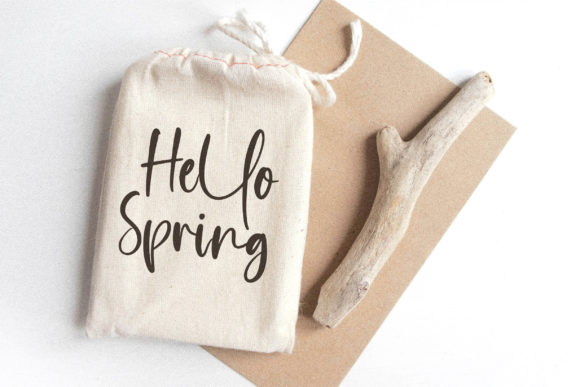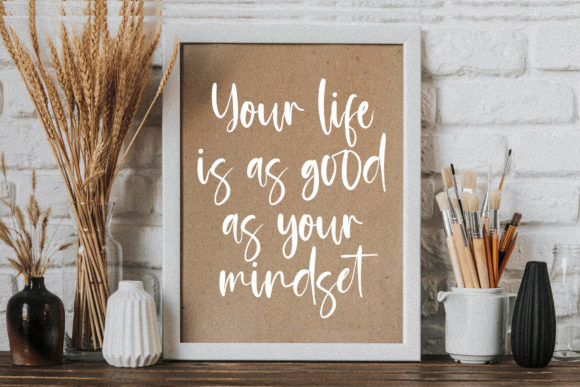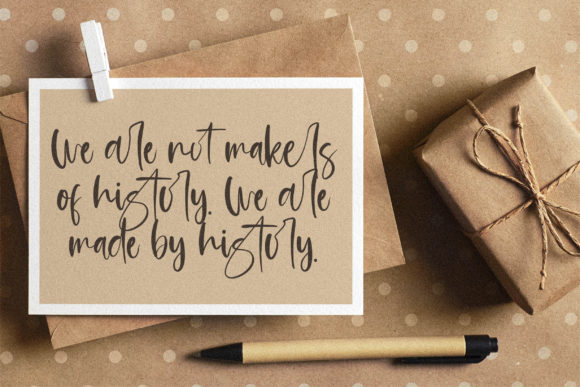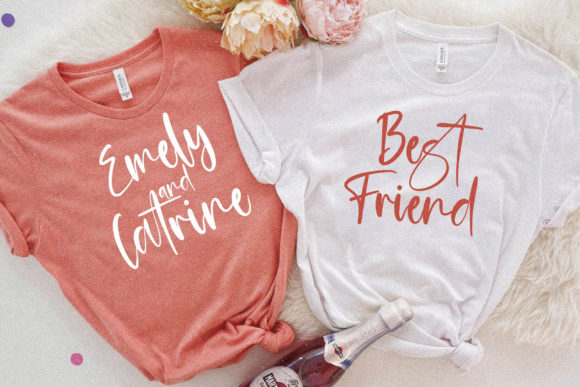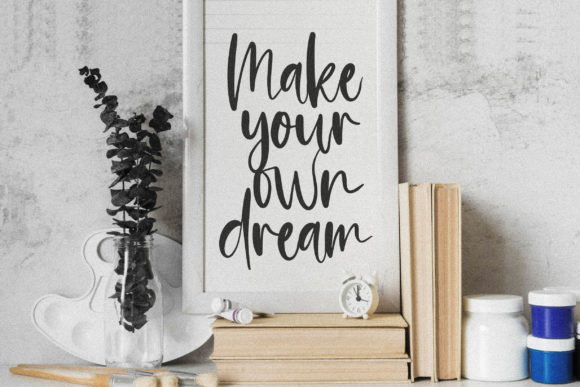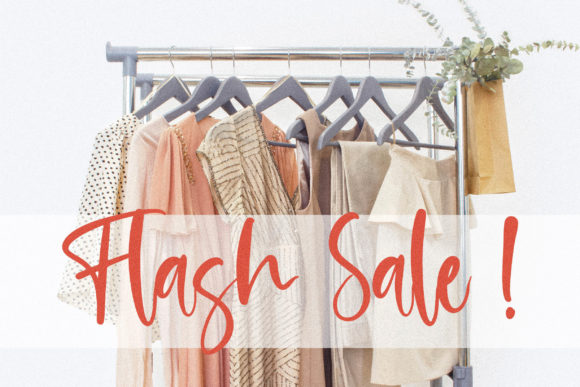
Introducing Amsterdam Morning Font: Elevate Your Designs with Elegance
Are you a designer or crafter looking for a font that embodies elegance and sophistication? Look no further than the Amsterdam Morning Font. This delicate, elegant, and flowing handwritten font is sure to take your creative projects to the next level. With its beautiful and well-balanced characters, Amsterdam Morning Font is the perfect addition to your design arsenal.
The Characteristics of Amsterdam Morning Font
Amsterdam Morning Font is a unique and versatile font that boasts a range of characteristics that make it ideal for a wide range of designs. Its delicate and flowing script is reminiscent of traditional handwriting, yet its elegant and refined aesthetic ensures that it looks modern and sophisticated. The font’s well-balanced characters are carefully crafted to ensure that they work harmoniously together, creating a beautiful and cohesive look that is sure to impress.
Why Choose Amsterdam Morning Font?
So why should you choose Amsterdam Morning Font for your next design project? Here are just a few reasons why this font stands out from the crowd:
- Elegance and sophistication: Amsterdam Morning Font exudes elegance and sophistication, making it perfect for designs that require a touch of refinement.
- Versatility: This font is incredibly versatile and can be used for a wide range of designs, from wedding invitations and branding materials to packaging and digital media.
- Unique and eye-catching: Amsterdam Morning Font is a unique and eye-catching font that is sure to grab attention and leave a lasting impression.
- Easy to read: Despite its elegant and flowing script, Amsterdam Morning Font is easy to read, making it perfect for designs that require a clear and concise message.
How to Use Amsterdam Morning Font
Amsterdam Morning Font is incredibly easy to use and can be incorporated into your designs in a variety of ways. Here are a few ideas to get you started:
- Wedding invitations and stationery: Amsterdam Morning Font is perfect for wedding invitations, thank you cards, and other stationery items.
- Branding and packaging: Use Amsterdam Morning Font to add a touch of elegance and sophistication to your branding materials and packaging.
- Digital media: This font is perfect for digital media, including social media graphics, blog posts, and website headers.
- Crafting and DIY projects: Amsterdam Morning Font can also be used for crafting and DIY projects, such as handmade cards, gift tags, and other paper crafts.
Tips for Pairing Amsterdam Morning Font with Other Fonts
When pairing Amsterdam Morning Font with other fonts, there are a few things to keep in mind. Here are some tips to help you create a beautiful and cohesive look:
- Pair with a sans-serif font: Pairing Amsterdam Morning Font with a sans-serif font, such as Arial or Helvetica, creates a beautiful contrast between the elegant script and the clean, modern sans-serif font.
- Use a font with a similar feel: If you want to create a cohesive look, try pairing Amsterdam Morning Font with another font that has a similar feel, such as a handwritten or script font.
- Experiment with font sizes: Don’t be afraid to experiment with different font sizes to create visual interest and hierarchy in your design.
In conclusion, Amsterdam Morning Font is a beautiful and elegant handwritten font that is sure to elevate your designs and take them to the next level. With its delicate and flowing script, well-balanced characters, and versatility, this font is perfect for a wide range of designs, from wedding invitations and branding materials to packaging and digital media. Whether you’re a designer or crafter, Amsterdam Morning Font is a must-have font that is sure to inspire your creativity and help you create stunning designs.